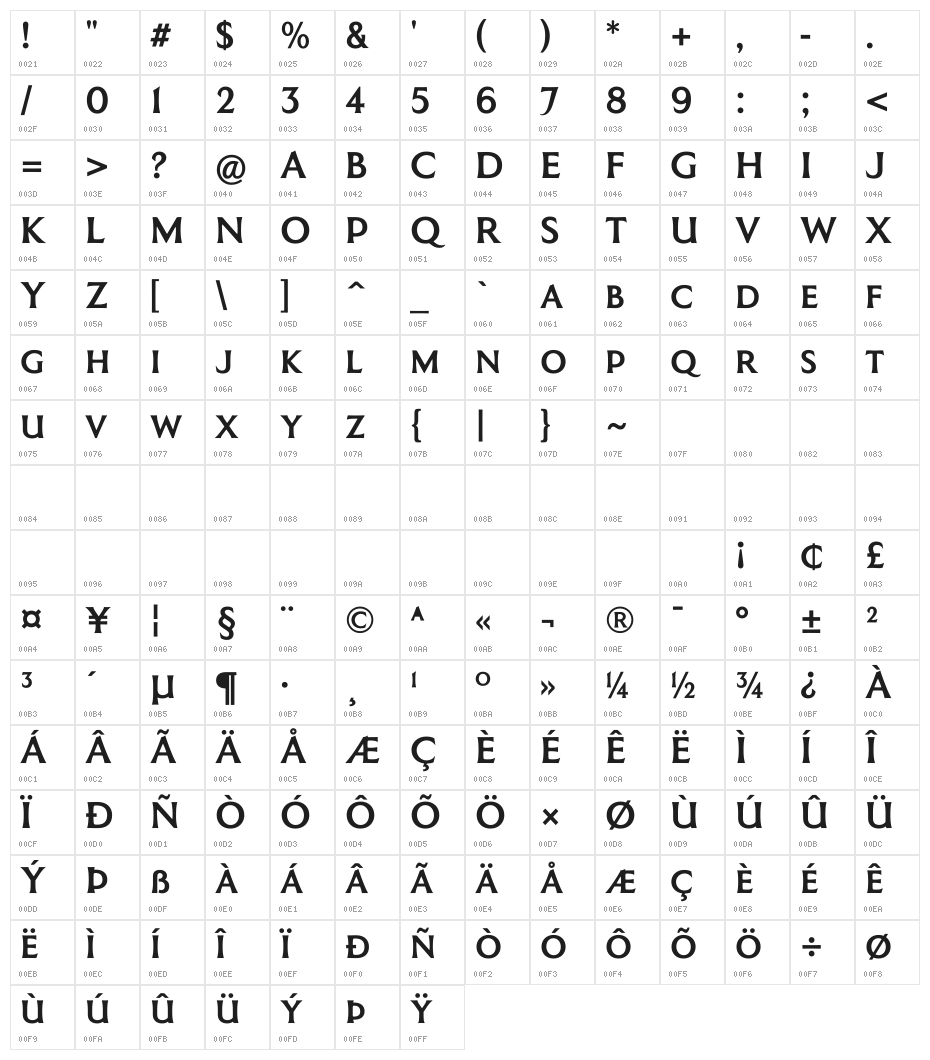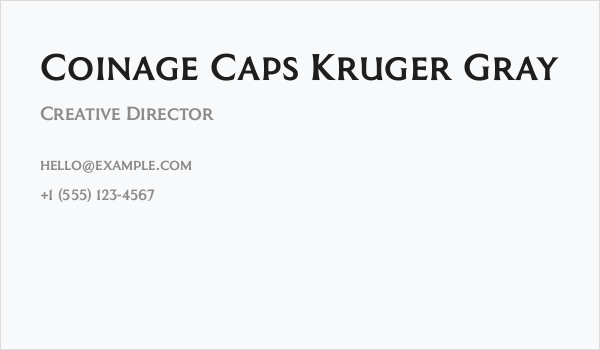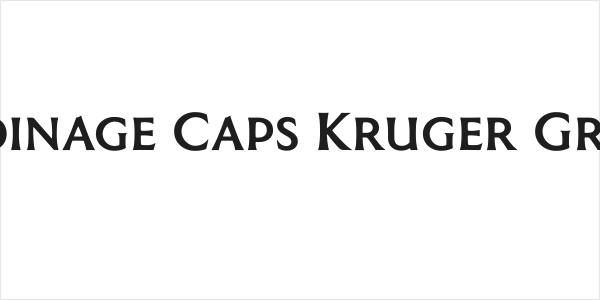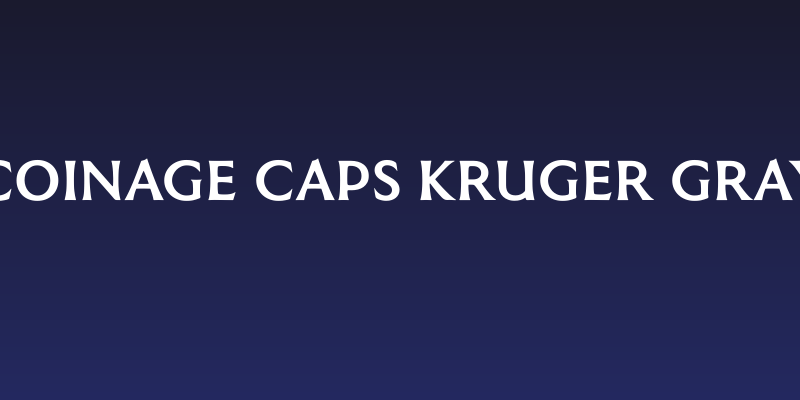
Coinage Caps Kruger Gray Font
Coinage Caps Kruger Gray Description
This font features a classic serif style with a strong presence and elegant curves. The uppercase letters are bold and commanding, while the lowercase letters maintain a consistent and harmonious flow. The numerals are clear and distinct, making them suitable for various applications. The special characters are well-integrated, adding versatility to the font's use. Overall, the font exudes a timeless and sophisticated appeal, making it ideal for formal and professional settings.
| Proposed Projects | Ideal for book covers, formal invitations, branding, and editorial design. |